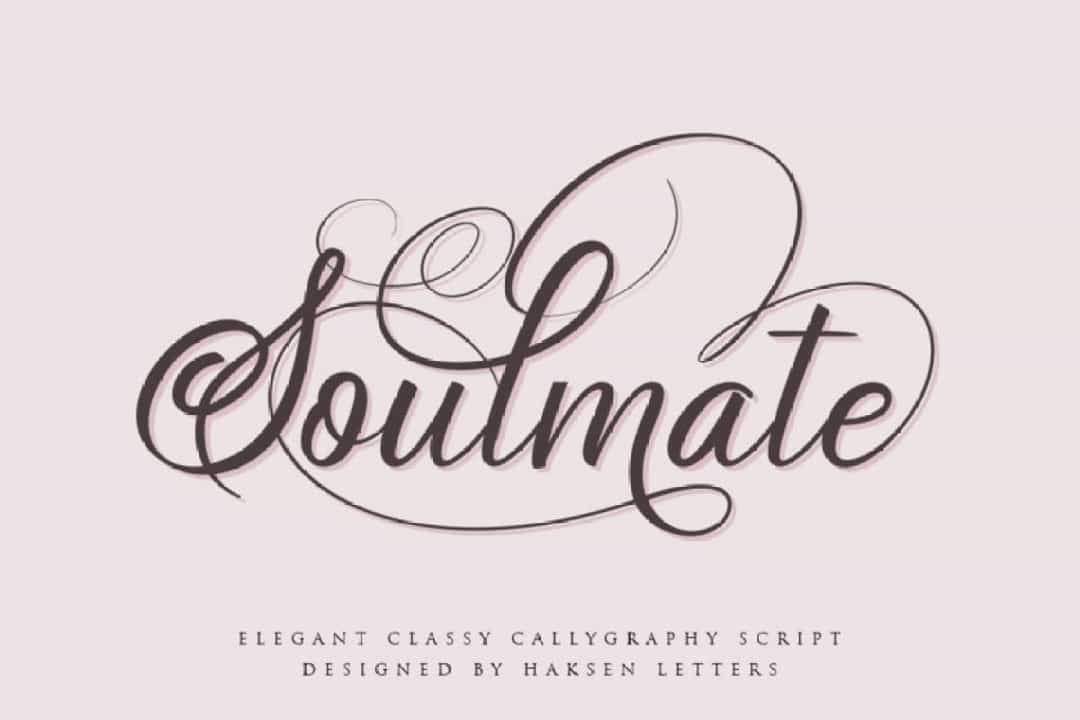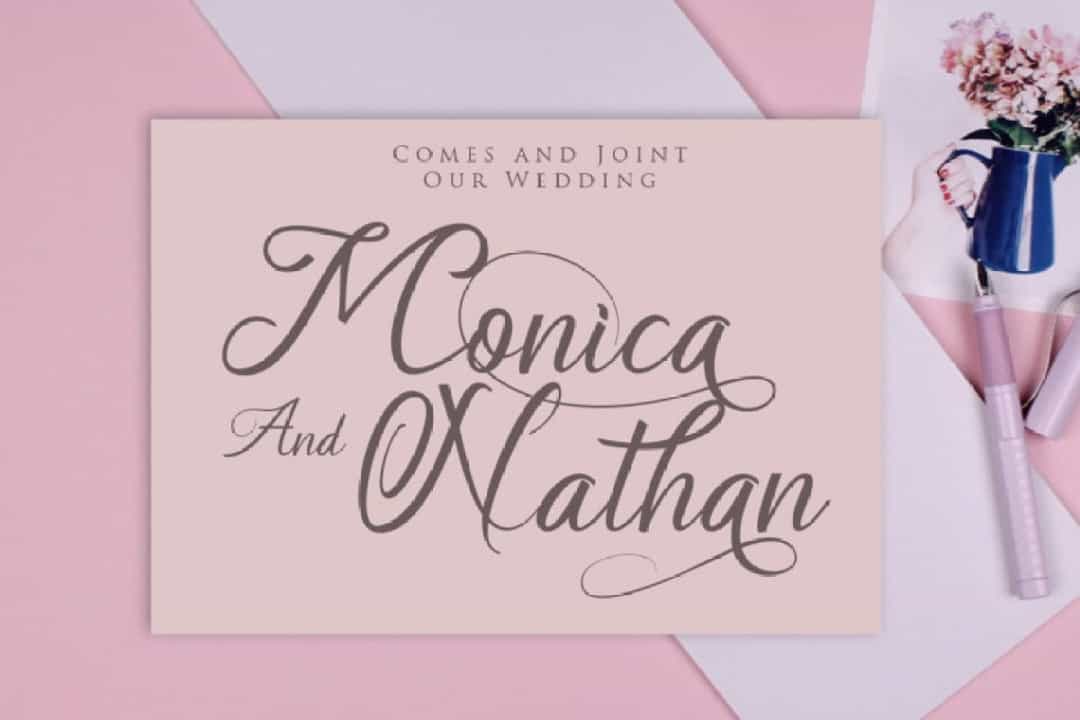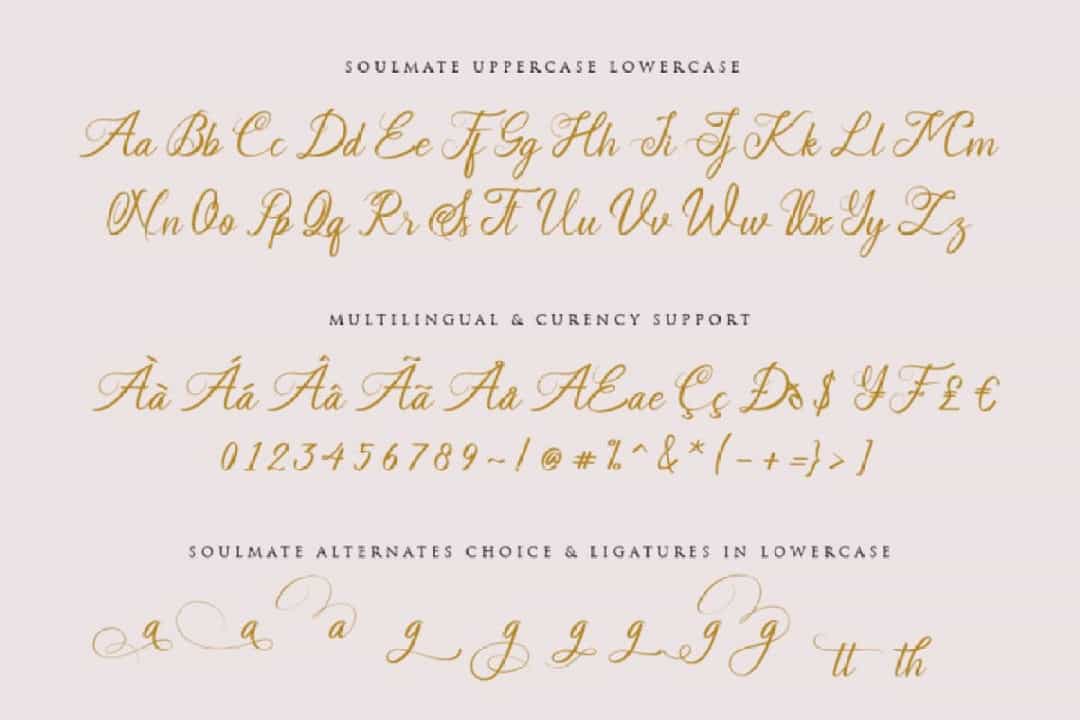
Soulmate is a beautiful stylish script font with plenty of alternatives to choose from and look stunning. Due to the silky smooth texture and the possibility of using the font for different letters, Soulmate will complement any design concept!